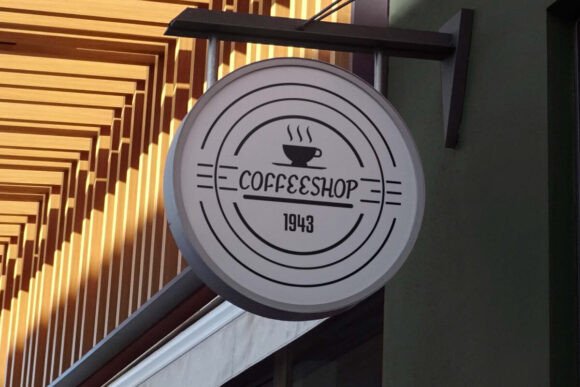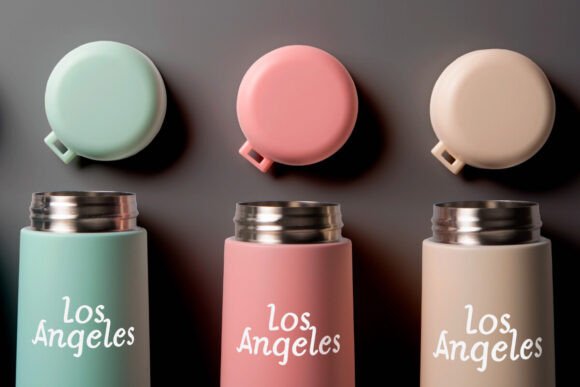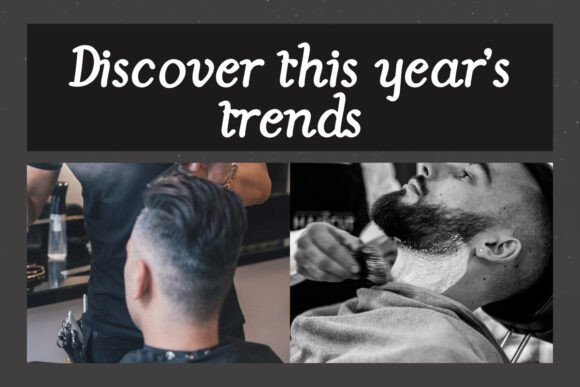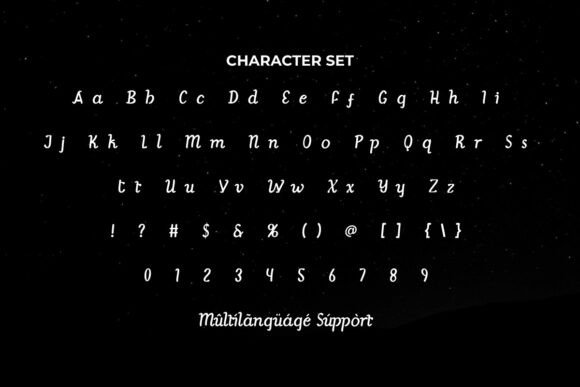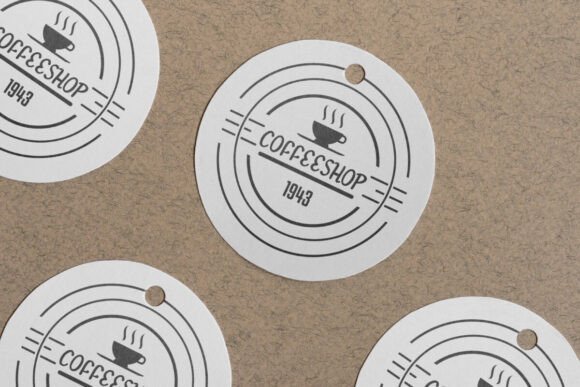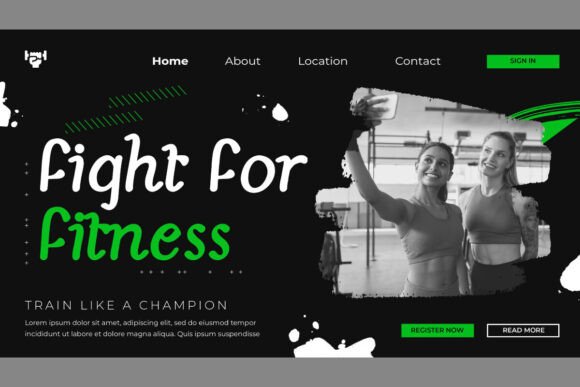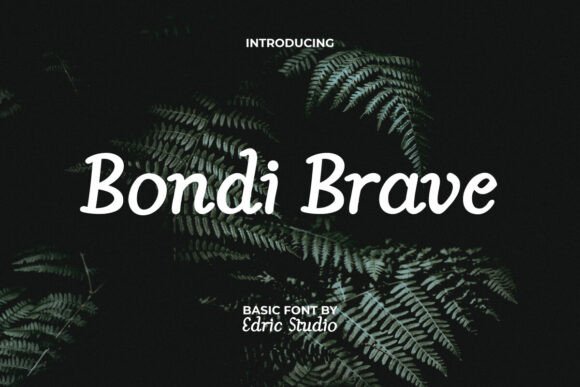
Bondi Brave Font: Elevate Your Design with a Touch of Sophistication
In the world of typography, a font can make or break the visual appeal of a design. For those seeking a sophisticated and elegant display font, look no further than Bondi Brave Font. This stunning font boasts natural handwriting-style lines that not only make it visually appealing but also incredibly easy to read. Whether you’re a designer, craftsperson, or simply a creative enthusiast, Bondi Brave Font is an excellent addition to your typography arsenal.
The Characteristics of Bondi Brave Font
Bondi Brave Font is distinguished by its unique blend of elegance and approachability. Its shape lines exude a natural, handwritten feel that lends a personal touch to any design. This font’s readability is one of its standout features, making it perfect for a wide range of applications, from digital content to print materials.
One of the key advantages of Bondi Brave Font is its versatility. It’s a display font that can be used across various industries and creative fields. Here are some areas where Bondi Brave Font truly shines:
• Art and Design: For artists and designers, Bondi Brave Font offers a unique way to add personality to their work. Whether it’s for a logo, a poster, or a digital project, this font can elevate the visual appeal.
• Cafes and Restaurants: For businesses in the food and beverage industry, a distinctive font can help in creating a memorable brand identity. Bondi Brave Font’s elegance makes it suitable for menus, signage, and marketing materials.
• Content Creators and Writers: For those who create digital content or write for a living, Bondi Brave Font can add a professional yet personal touch to blog posts, articles, and social media content.
• Event Organizers: When it comes to event branding, a unique and readable font is crucial. Bondi Brave Font can be used for event logos, invitations, and promotional materials, ensuring a cohesive and attractive look.
• Fashion and Furniture: In the realms of fashion and furniture design, aesthetics are everything. Bondi Brave Font can be used to create stylish and sophisticated branding, lookbooks, and marketing materials.
• Graphic Design and Handicraft: For graphic designers and handicraft enthusiasts, Bondi Brave Font offers endless possibilities. It can be used in digital designs, handmade crafts, and even for creating unique typographic art pieces.
• Photography: Photographers can use Bondi Brave Font to add a touch of elegance to their portfolios, social media posts, and promotional materials.
Why Choose Bondi Brave Font?
With so many fonts available, why should Bondi Brave Font be your go-to choice? Here are a few compelling reasons:
• Unique Style: Bondi Brave Font offers a distinctive style that’s hard to find elsewhere. Its natural, handwriting-like lines give it a personal and approachable feel.
• Readability: Despite its elegant and sophisticated look, Bondi Brave Font remains highly readable, making it suitable for both headings and body text.
• Versatility: As mentioned earlier, Bondi Brave Font’s versatility is one of its strongest assets. It can be used across various platforms and industries.
• Ease of Use: This font is easy to integrate into your designs, whether you’re working with graphic design software or simply adding text to a digital project.
Bondi Brave Font is more than just a display font; it’s a tool that can elevate your designs, add a touch of sophistication, and make your content stand out. Its unique blend of elegance, readability, and versatility makes it an excellent choice for designers, craftspersons, and creatives across various industries. Whether you’re looking to create stunning visual content, enhance your brand identity, or simply add a personal touch to your projects, Bondi Brave Font is an excellent addition to your typography collection.